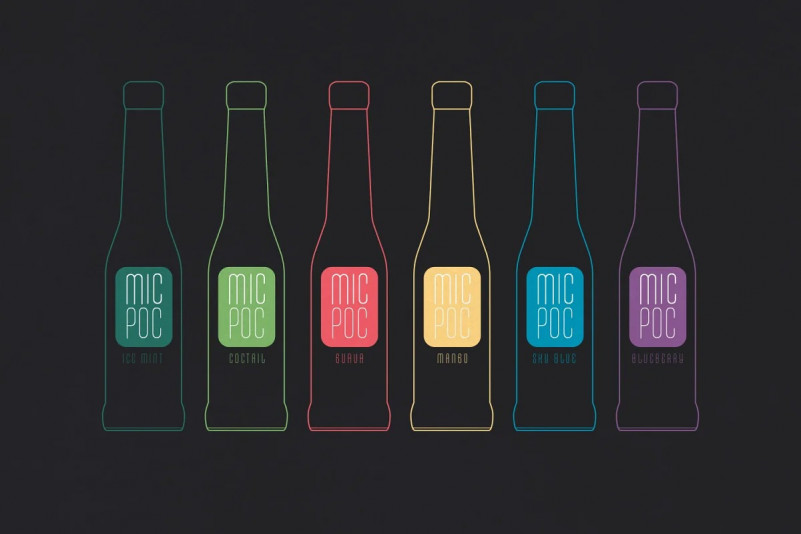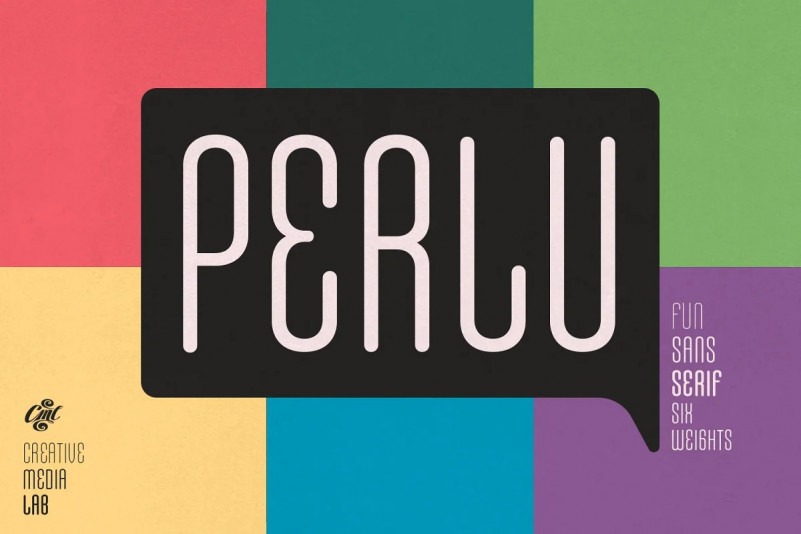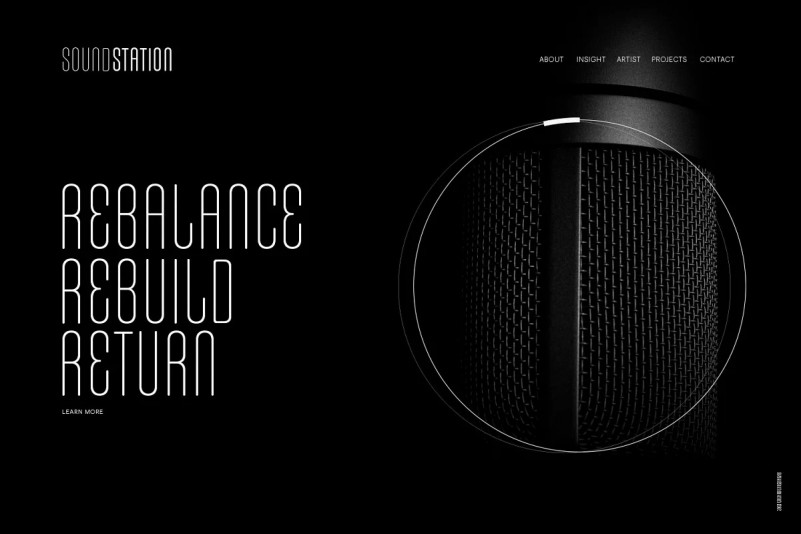
Perlu Font
Perlu is simple and minimalist sans serif font. Monoline with round edges give a casual and modern impressions, Consists of 6 weights from thin to black, variable styles as well as multilingual support, numbers, and currency symbols. Any questions please message me, thank you!